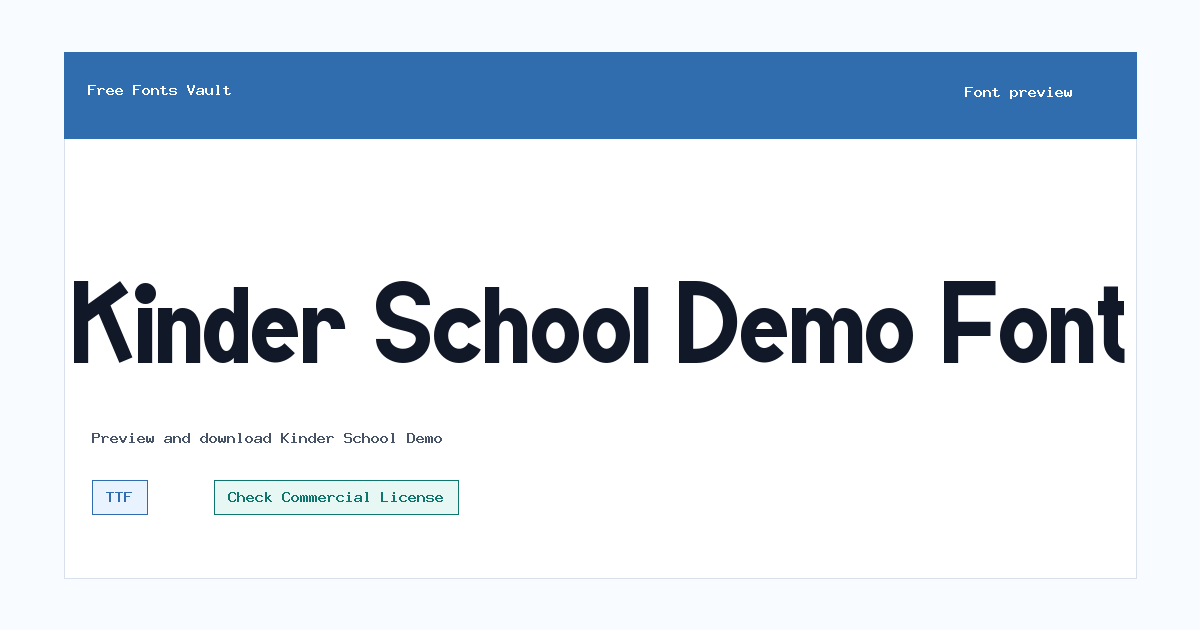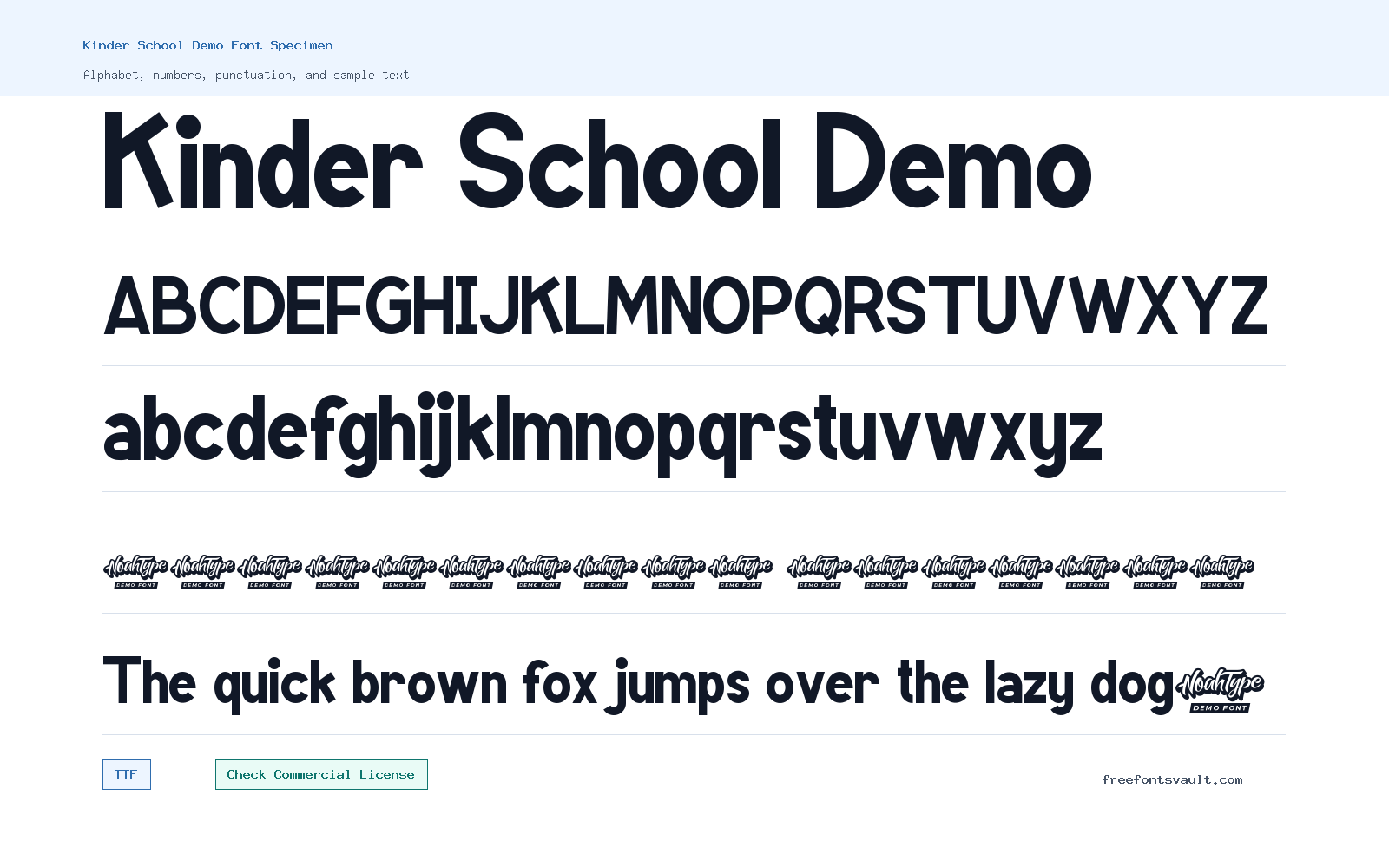
Kinder School Demo
- Designer Widiyanti & Sarah SP
- Foundry NoahType
Kinder School Demo font.
About Kinder School Demo
Kinder School Demo is useful for visitors who want to test a school-themed display font in the live preview before downloading. Because the available file is a demo regular style, try it first with short words, headings, labels, and sample classroom phrases rather than assuming it will suit long paragraphs. The family name gives it a friendly education angle, but the safest way to judge the design is to type your own text and check the spacing, letter shapes, and readability at the size you plan to use.
Use the preview box to test uppercase and lowercase letters, numbers, punctuation, and any names or titles you need. Demo fonts can sometimes have limited character support, so check the exact text before using it in a finished design. For best results, pair Kinder School Demo with a simple body font if you are making worksheets, posters, invitations, notebook covers, classroom labels, or social graphics. Keep the display text short and make sure the words stay clear on small screens.
Kinder School Demo already has enough length, but its page should stay focused on clear user guidance. Treat it as a playful display font for school-themed graphics, classroom worksheets, children-focused invitations, craft labels, and informal posters. Since the name includes Demo, check the license before using it in a paid product, client design, or public campaign.
- Credited to Widiyanti & Sarah SP and NoahType
- Best tested with short display text before download
- School-themed headings and classroom labels
- Personal worksheets, study graphics, and notebook-style designs
- Kids party drafts, invitation mockups, and playful title text
Who designed Kinder School Demo?
The font is credited to Widiyanti & Sarah SP, with NoahType listed as the foundry.
What kinds of projects fit Kinder School Demo?
It is a practical choice to preview for personal school-themed designs, classroom labels, worksheet titles, notebook covers, and playful short headings.